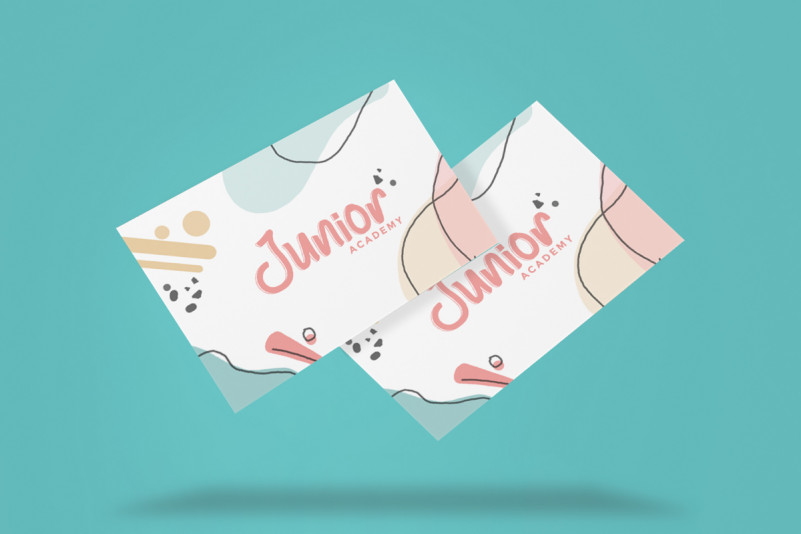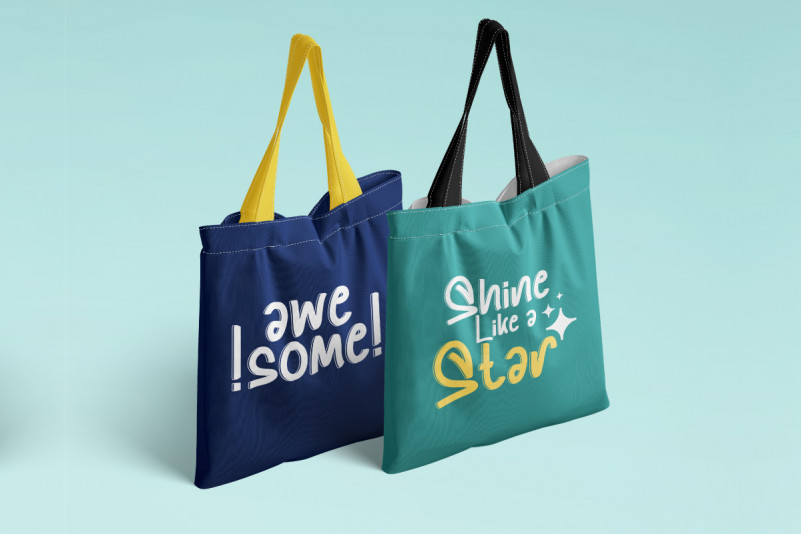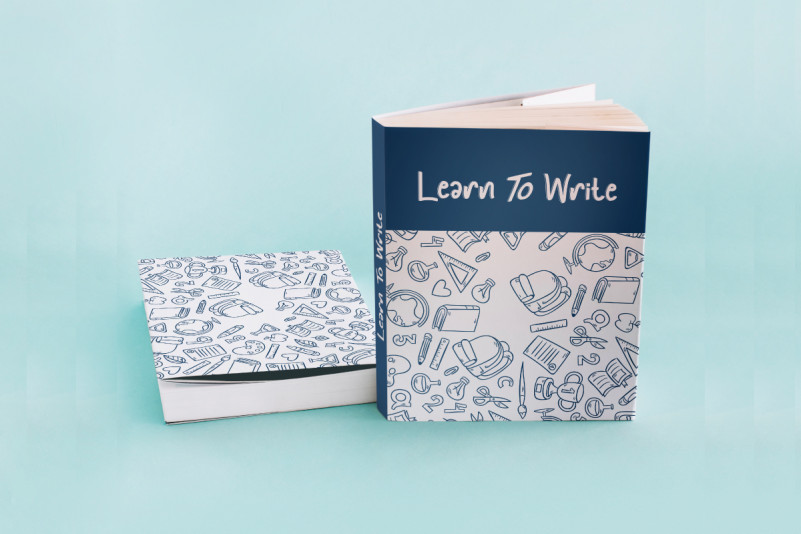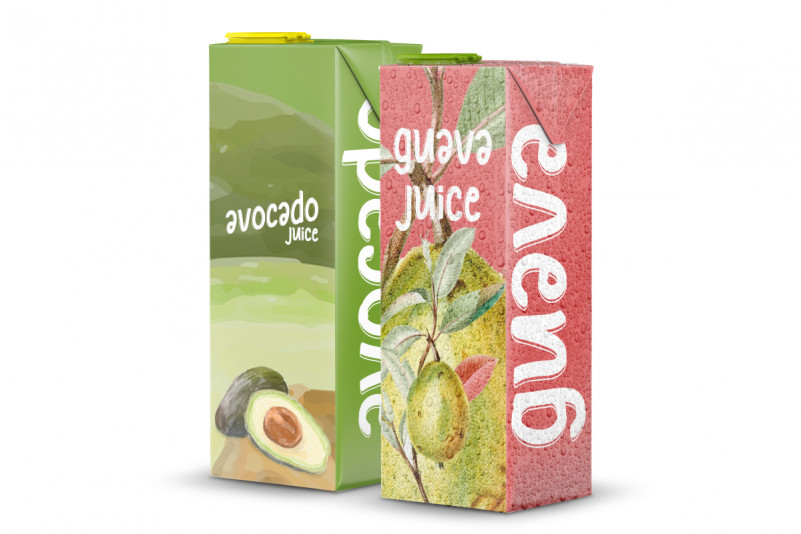
Seniman Handwriting Font is a unique Handwritten font inspired from many artists written notes. It can be used for many purpose from Fun to Brandings. The Seniman Font will be awesome for any designs industries: clothing, events, cosmetic, beauty, arts, brands, packaging, invitation, games. etc